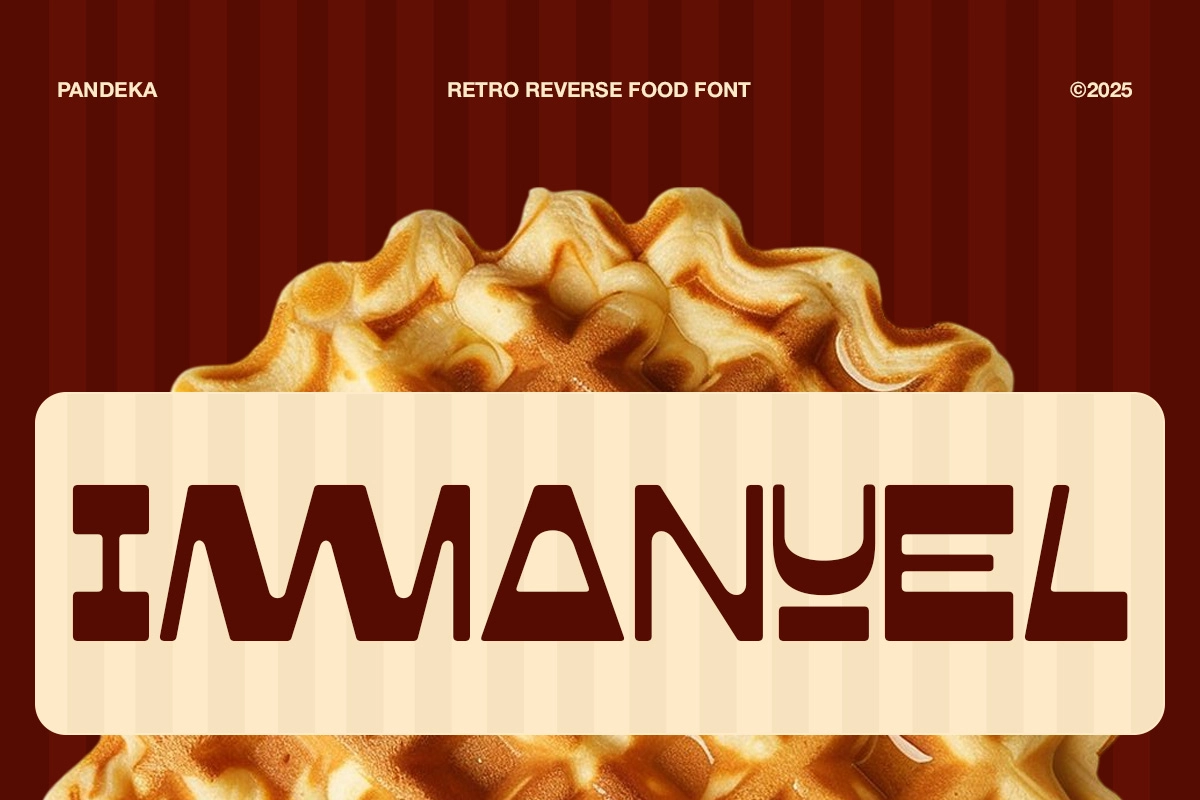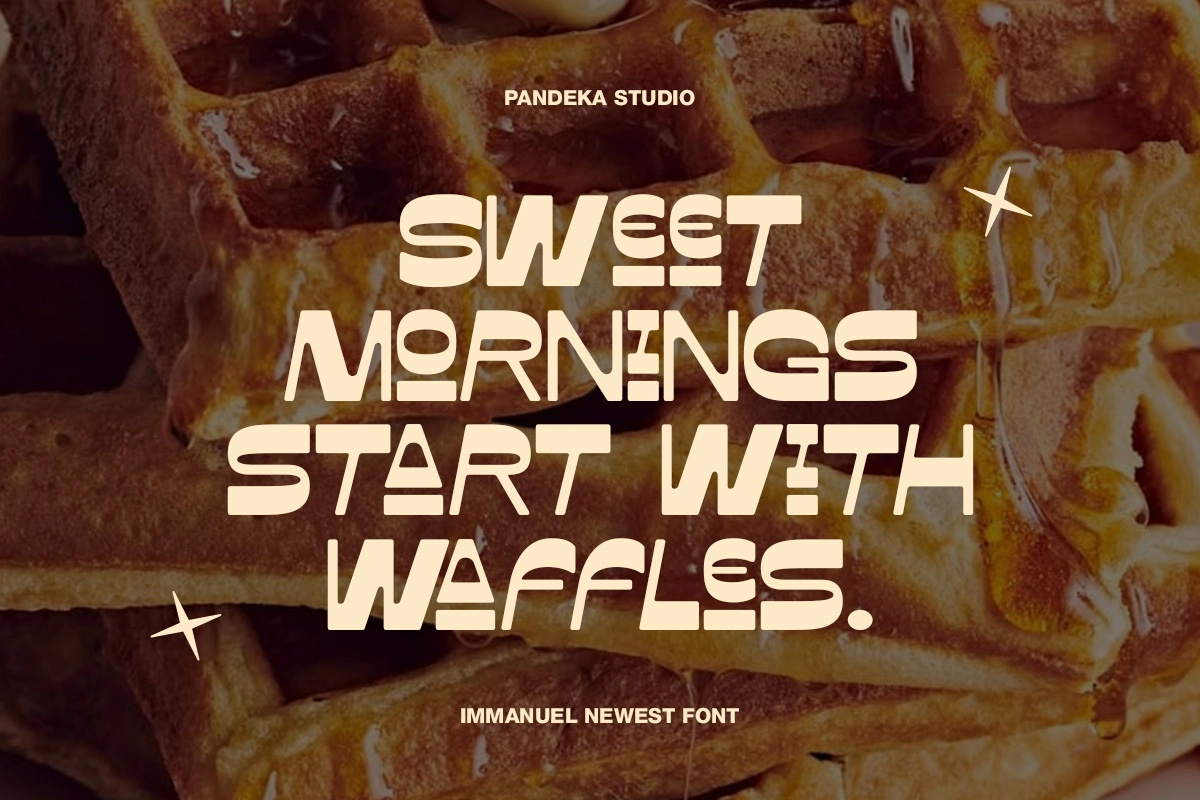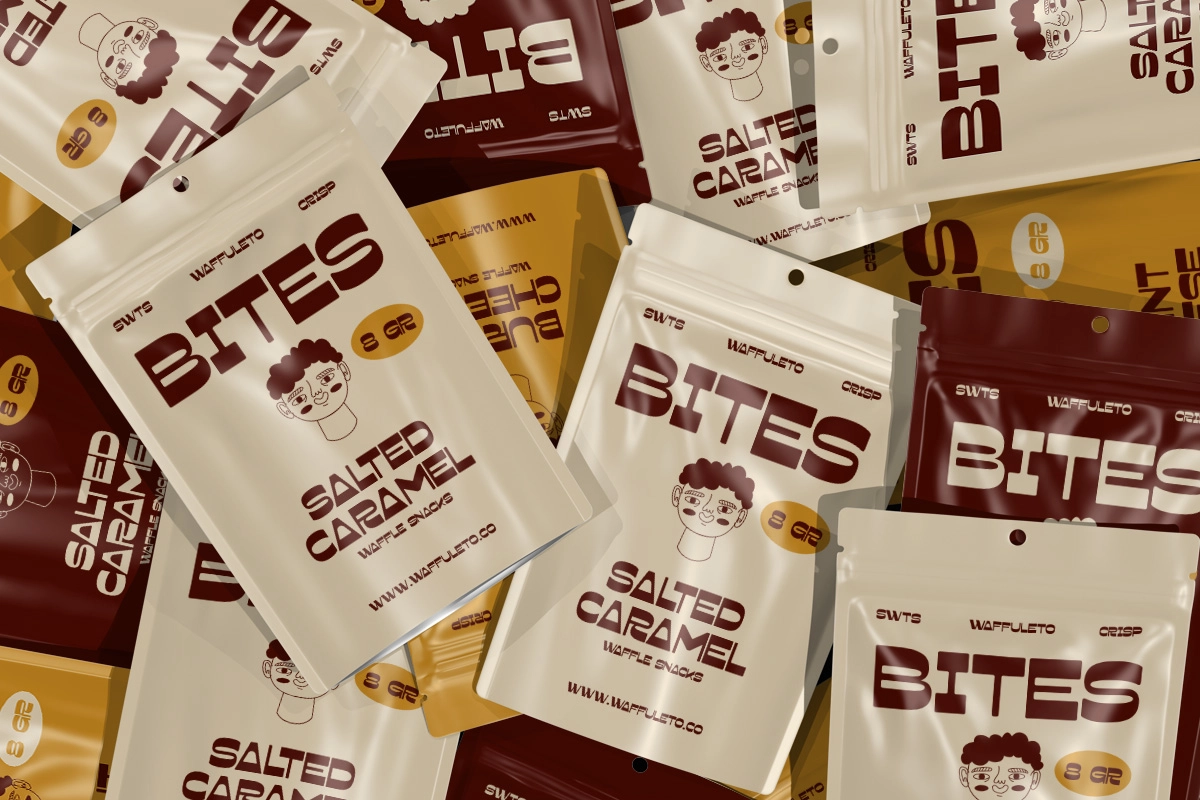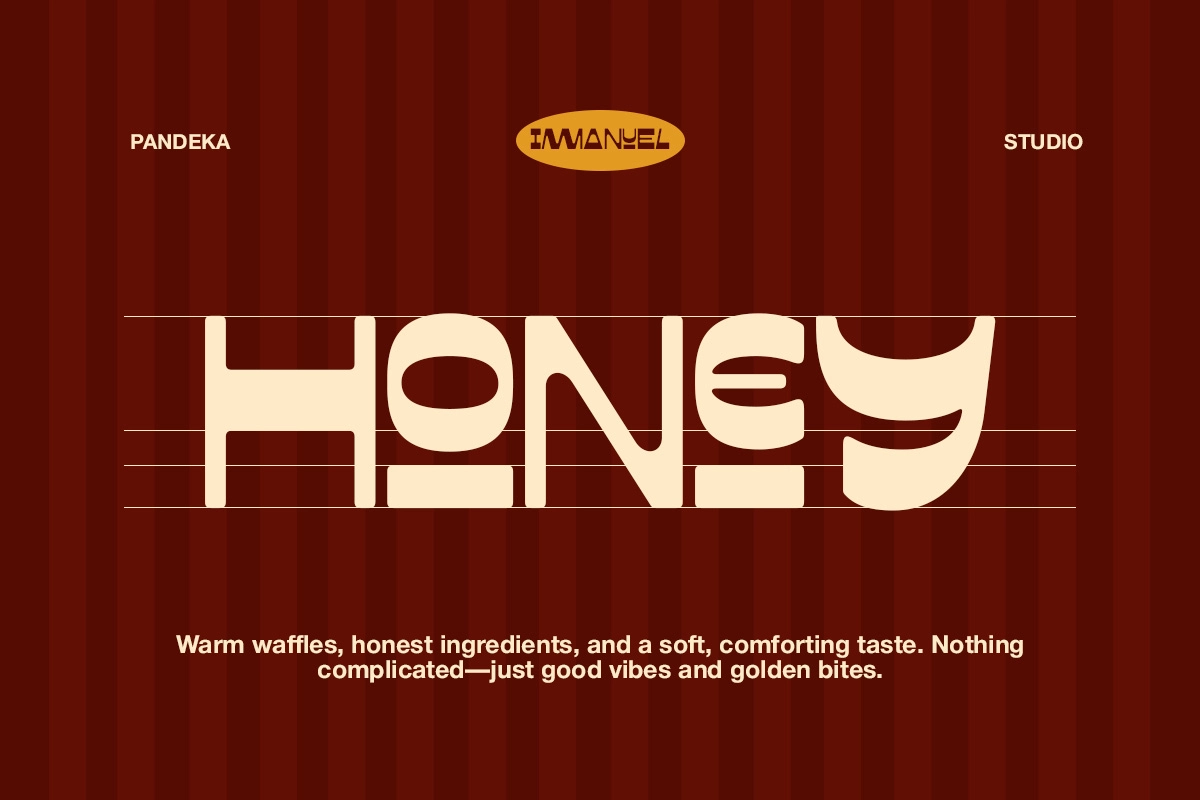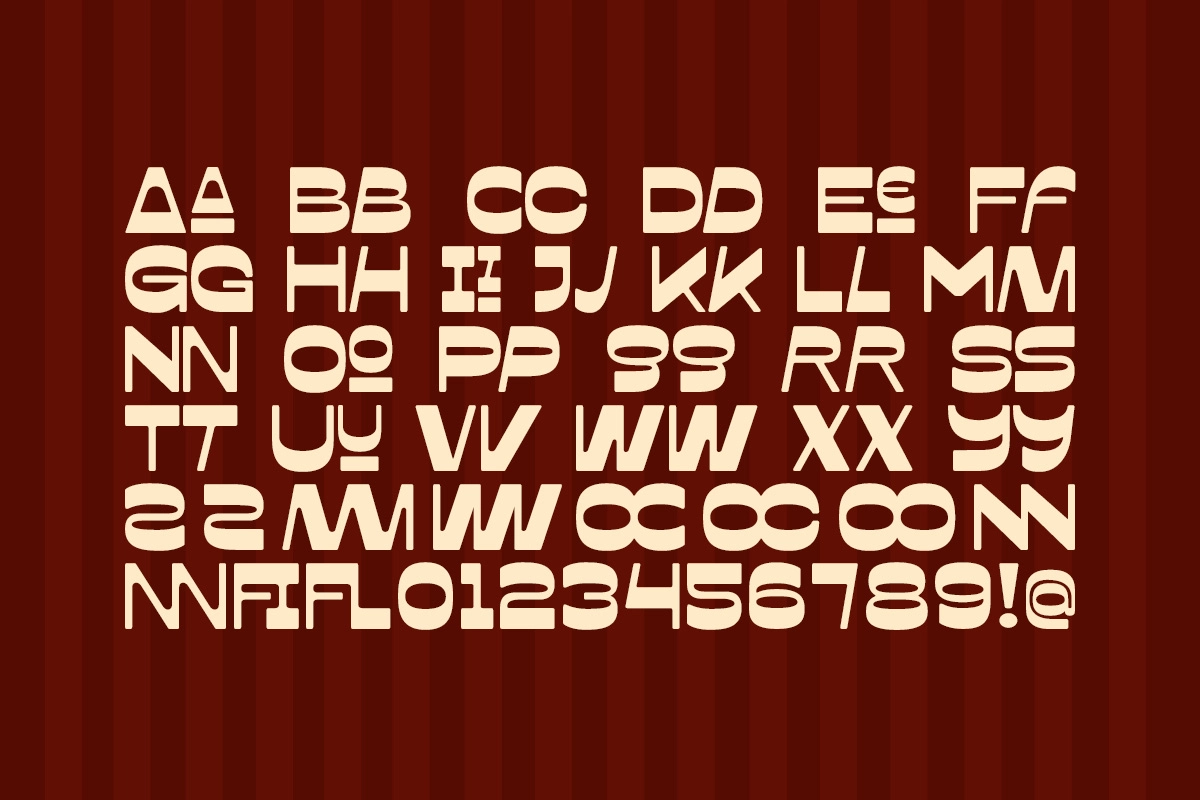
Immanuel - Retro Reverse Food Font
Immanuel pulls from vintage food packaging, diner signage, and old waffle-shop lettering to build a chunky retro font with reversed, blocky letterforms. Thick horizontal bars and rounded counters give the uppercase a stamped, sign-painted weight, while five-plus built-in ligatures fuse letters like M, N, and W into single connected shapes.
The Rough companion roughs up the same shapes with a textured edge, so the same warmth swings between a clean bakery-counter look and a worn, hand-stamped one. Use it for café branding, bakery logos, waffle shop signage, snack packaging, food truck menus, market posters, social media promos, and retro culinary merchandise.